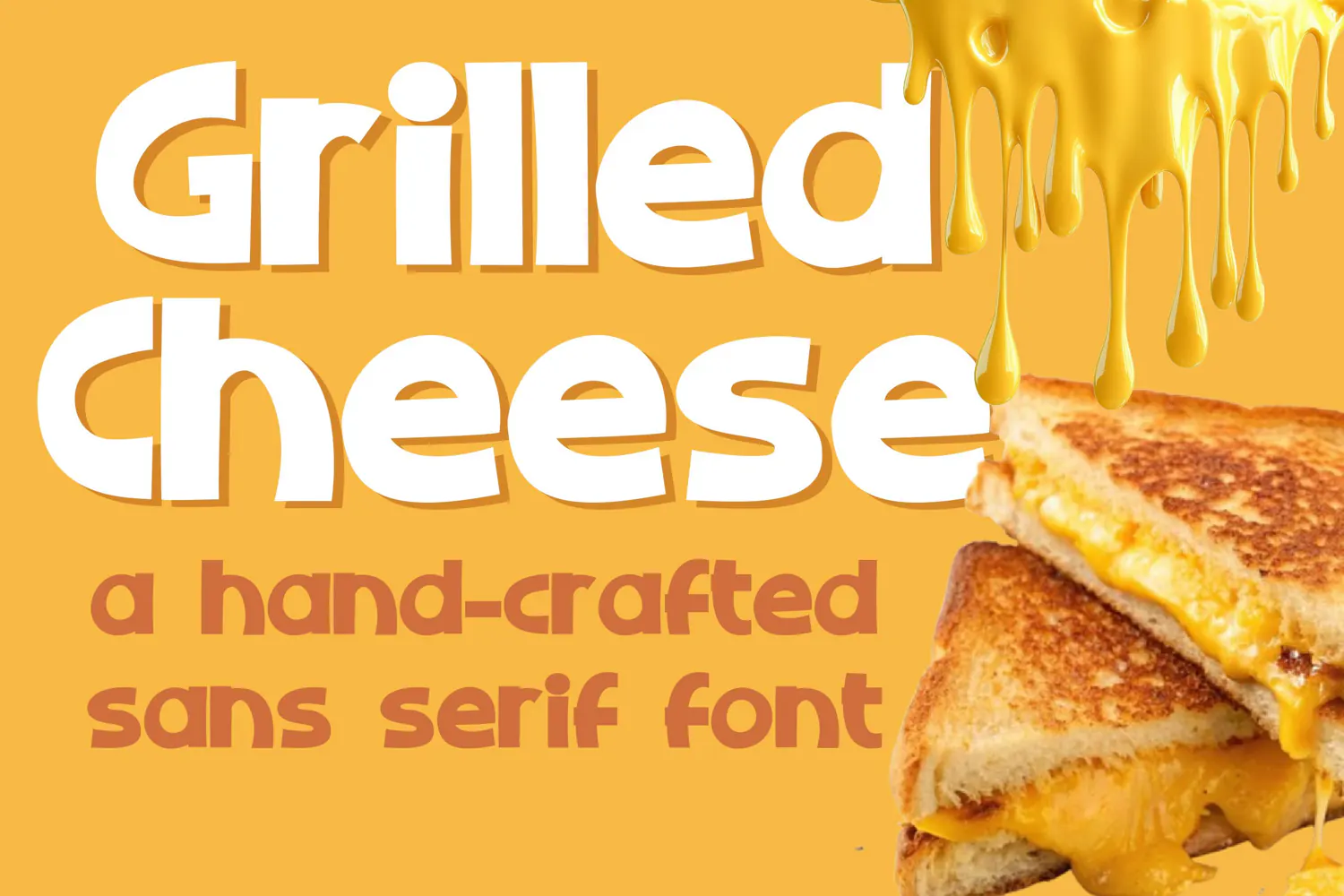
Grilled Cheese Bold Sans Serif Font
Grilled Cheese is a chunky, cheerful sans serif with broad letters and a friendly feel. Its bold shapes stand out on food packaging, menus, party invitations, stickers, and playful headlines.